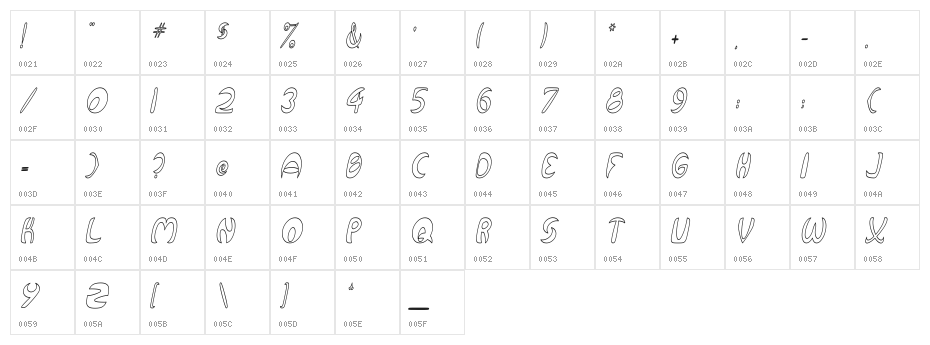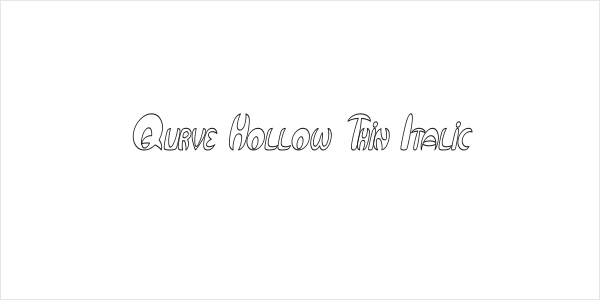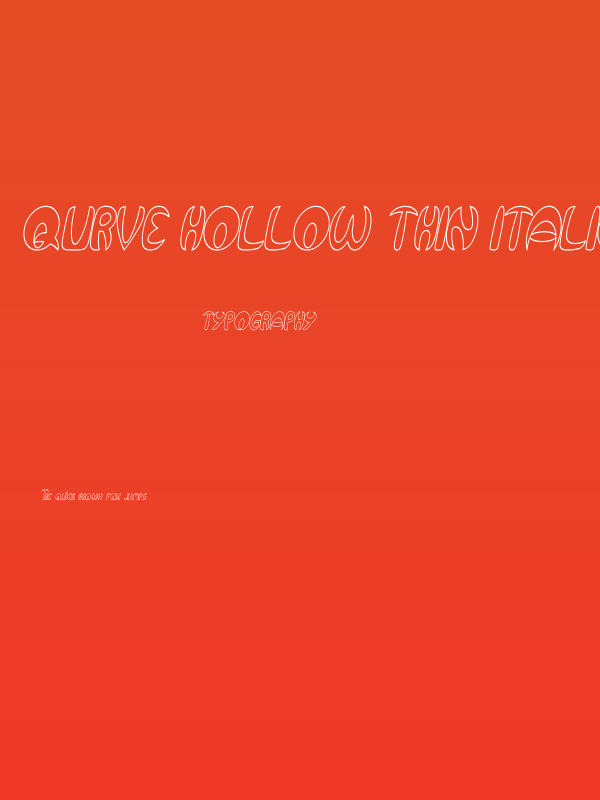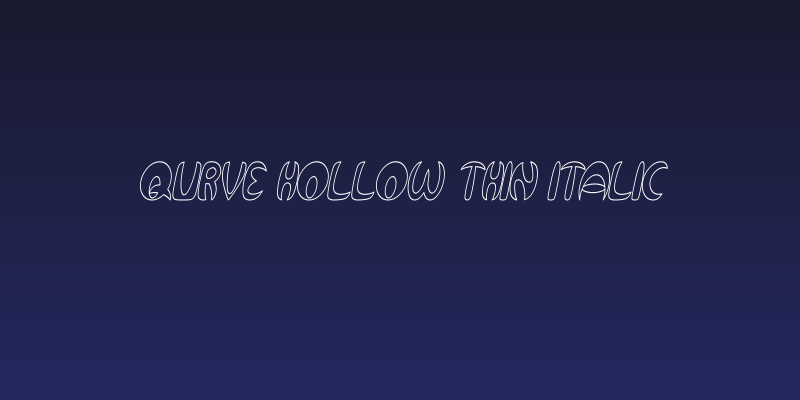
Qurve Hollow Thin Italic Font
Qurve Hollow Thin Italic Description
This font features a unique hollow design with a thin, italicized style. The characters are outlined, creating a light and airy appearance that is both modern and playful. The uppercase and lowercase letters maintain a consistent flow, with smooth curves and a slight slant that enhances its dynamic look. The numerals and special characters follow the same aesthetic, ensuring a cohesive visual experience. This font's open structure makes it ideal for projects that require a contemporary and artistic touch.
| Proposed Projects | Ideal for creative projects such as posters, logos, and artistic branding materials. |